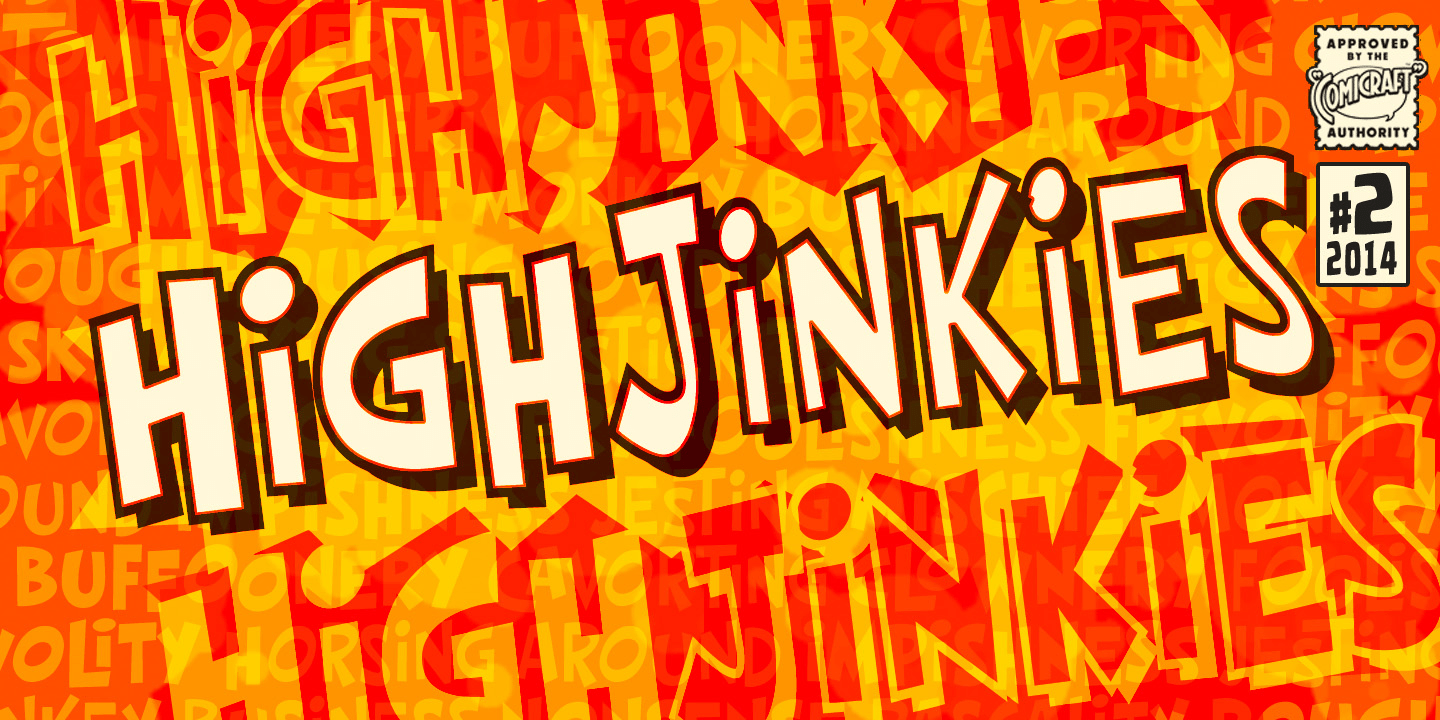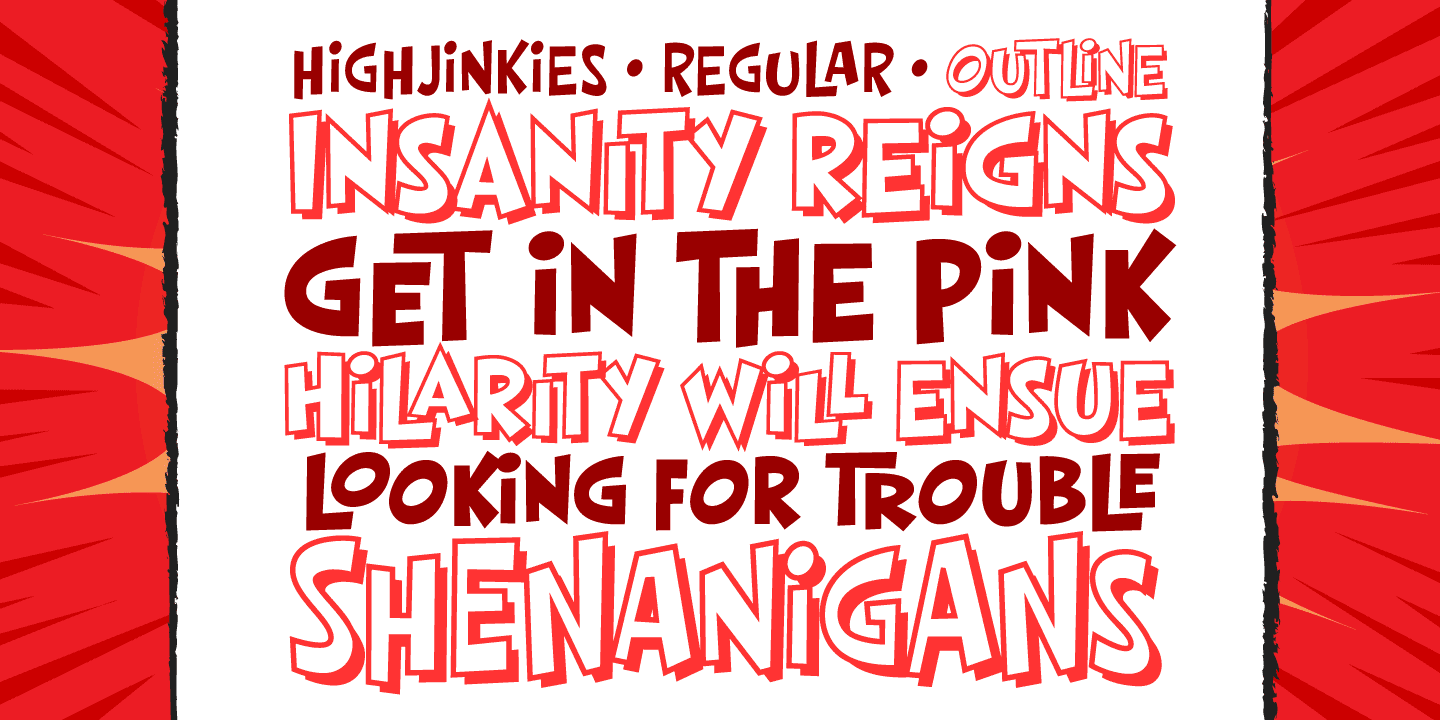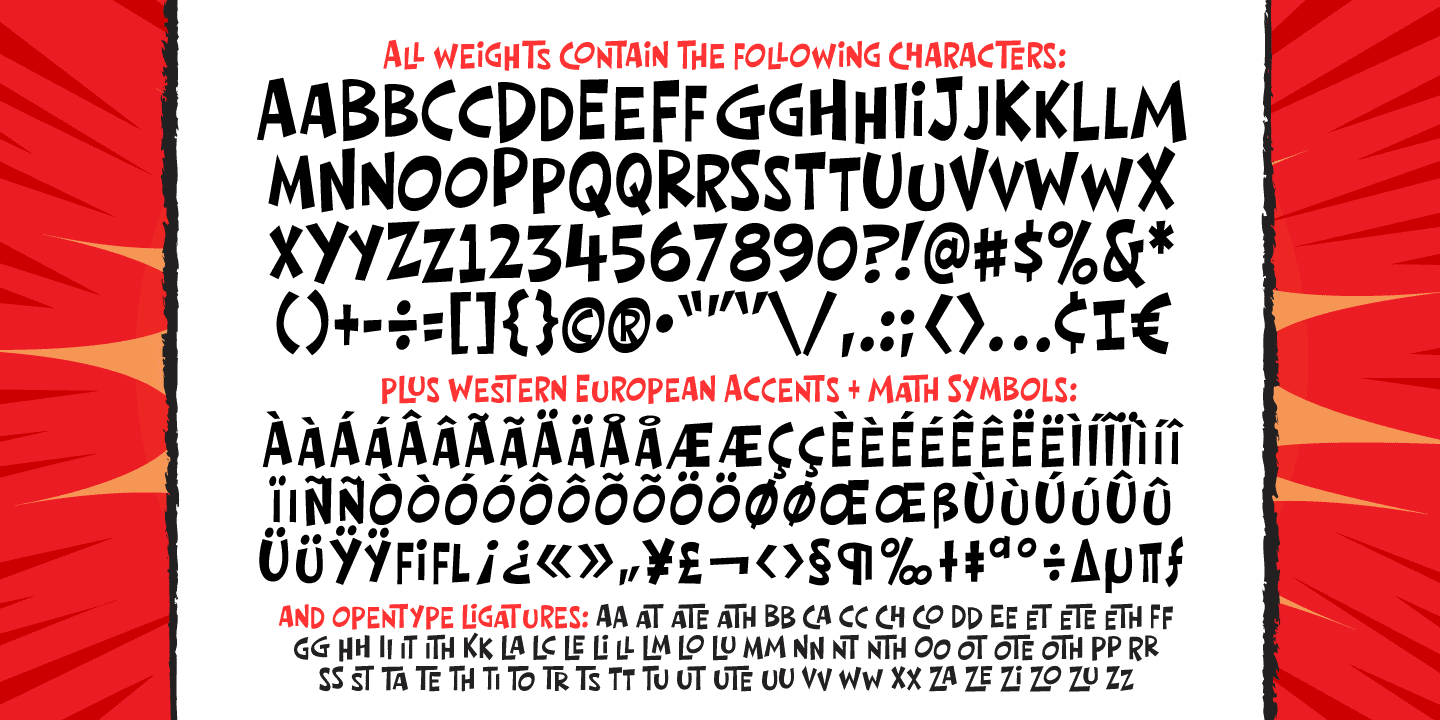
High Jinkies
Font Family by Comicraft Fonts
It's jaunty and flaunty and up to no good! It's a child born of fairly odd parents and alway looking for the good kind of trouble. It'll get you out of the red and into the pink like a panther pawning diamonds! Comicraft's John Roshell has slipped his hands into the gloves of the Phantom Font Finagler and there's HighJinks ahead to be sure!